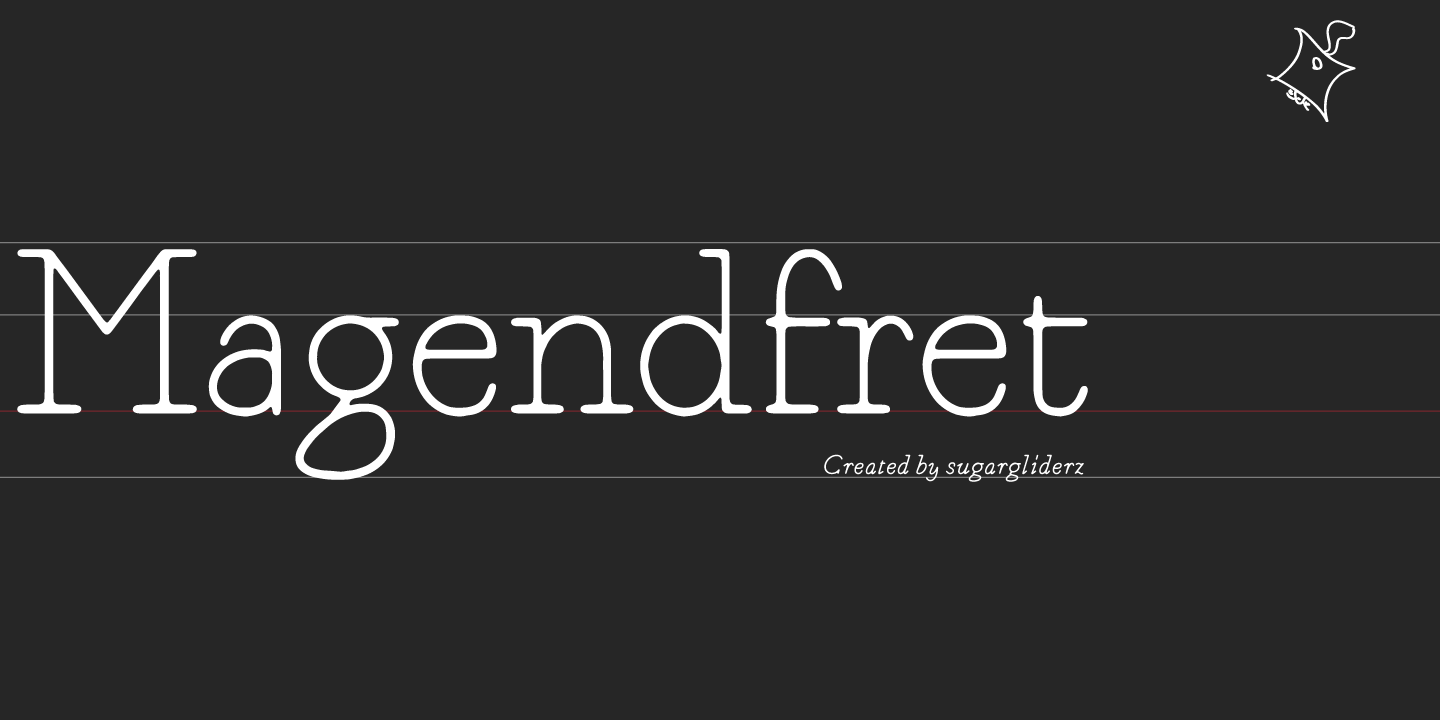
Magendfret Font Free Download is a distinctive and stylish display font that adds personality and flair to your creative projects. Please note: you must purchase a license for commercial use — this font is available as a free download strictly for testing and personal use.
Perfect for branding, headlines, posters, packaging, social media graphics, and fashion editorial designs, Magendfret Font Free Download makes your visuals stand out with its bold and artistic character.
What makes this font exciting is its unique letterforms, combining modern shapes with a touch of vintage elegance. It brings a fresh yet timeless vibe to any design, making it ideal for creatives seeking originality.
The Magendfret font family includes Regular and Italic styles, giving you flexibility to create dynamic and expressive typography with depth.